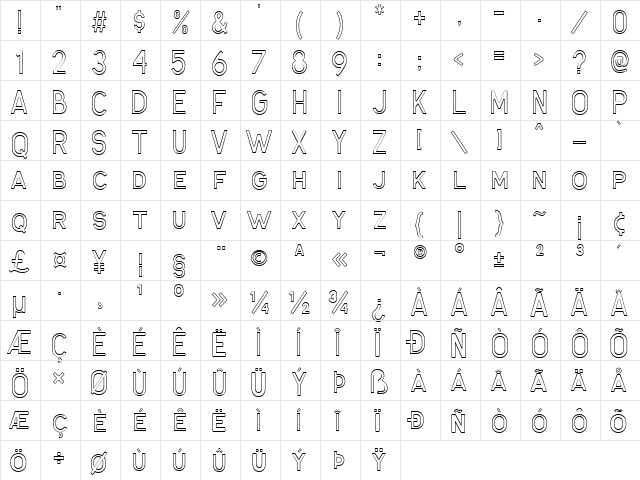
Antone Outline
| Style | Outline |
| Foundry | Letterhend Studio |
| Designer | Letterhend Studio |
Design Context for Antone Typeface
Antone is built around its visual character rather than neutral utility — its distinctive forms are designed to make an impression at display sizes.
Font Pairing: Pair with a clean neutral sans-serif for body copy to let Antone's character lead without overwhelming the composition.
Pro Tip: Use Antone exclusively at display sizes — it was designed to be seen, not read at length. Let a neutral companion handle body copy.